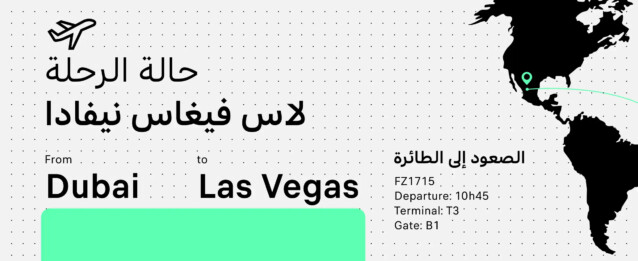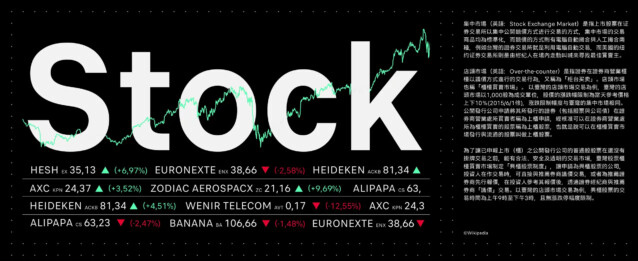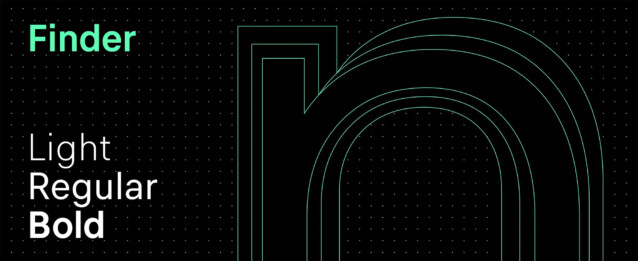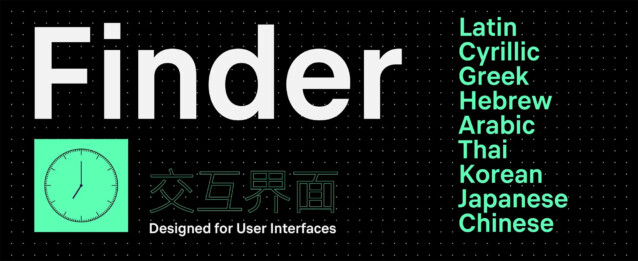
Finder Font Family is a geometric sans-serif font family created by Black Foundry with unique characters for a touch of distinction. Conceived specifcally for smaller sizes open design, large counters and generous spacing significantly improve legibility. Neutrality helps to keep user experience simple without distracting the reader.
Multi Script system is at the core of Finder’s DNA. Design, proportions, spacing everything was thought out to work together as a multilingual system covering most of the world’s languages. Working seamlessly across borders and across touch points.
Finder would be perfect for any UI project and will be especially precious for an international company that expands in new markets and is looking for a consistent design/communication across platforms and all its markets and countries.